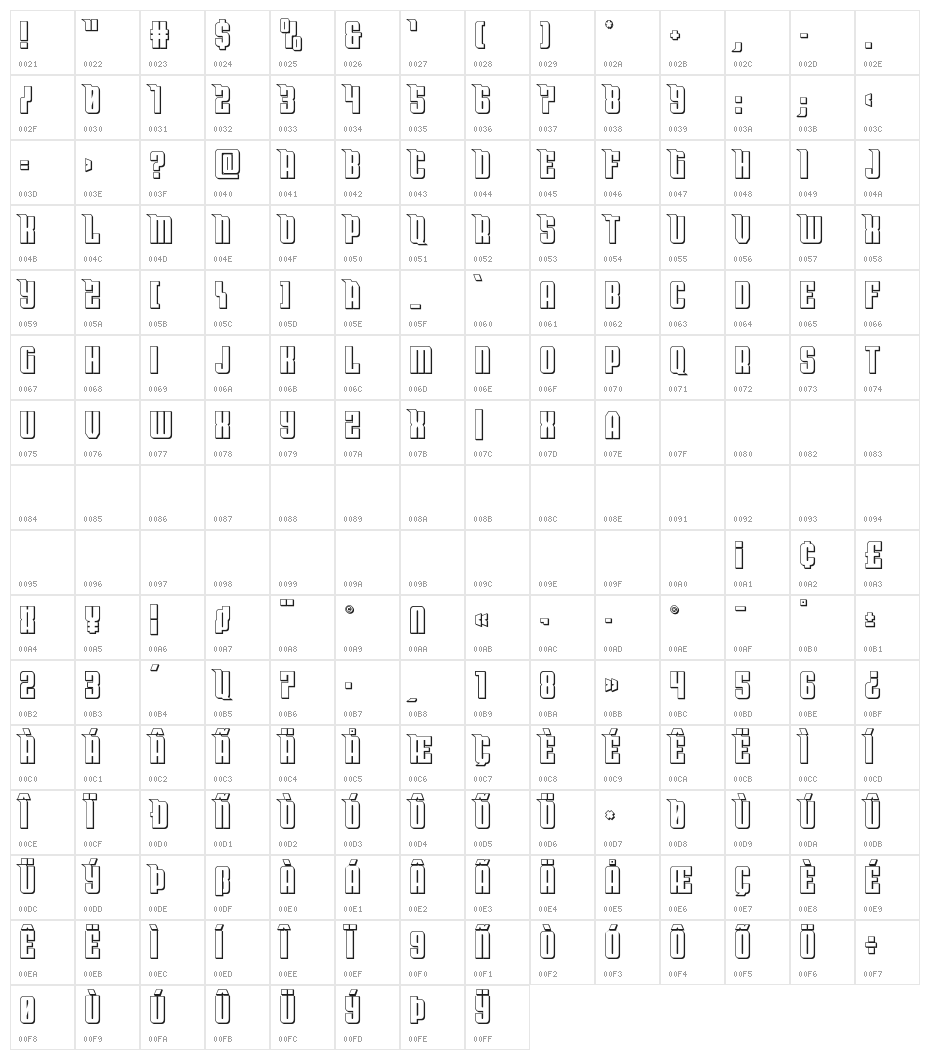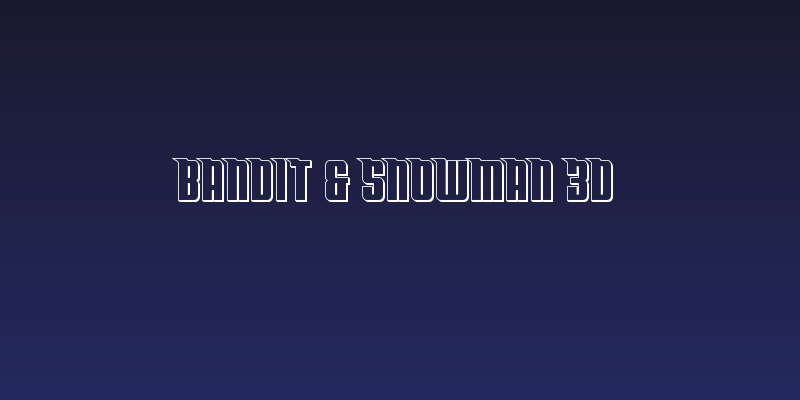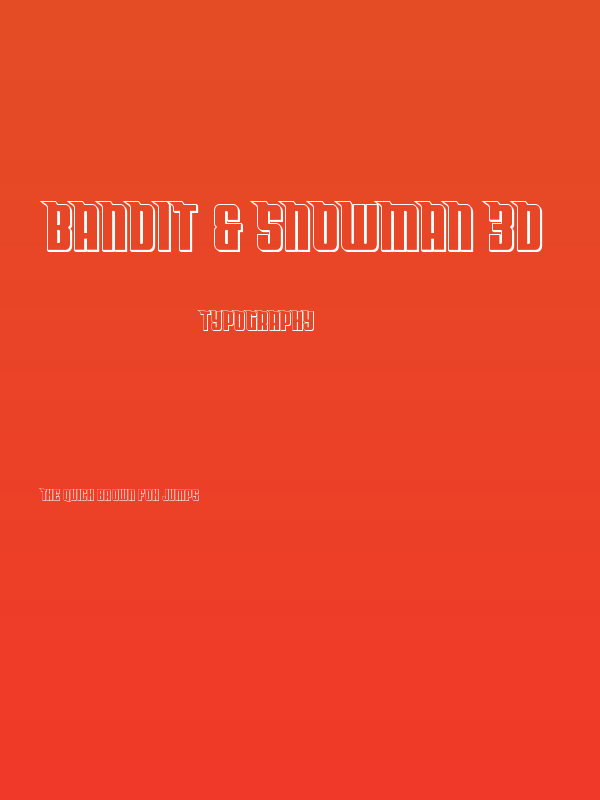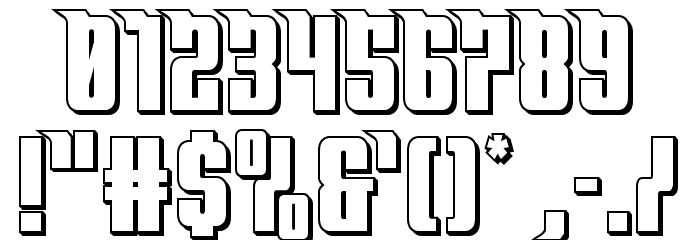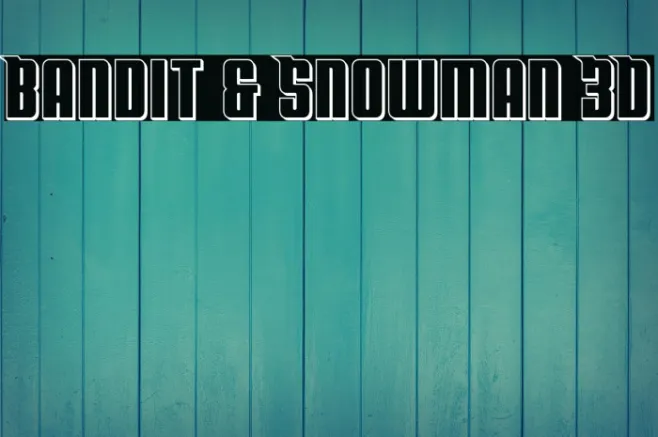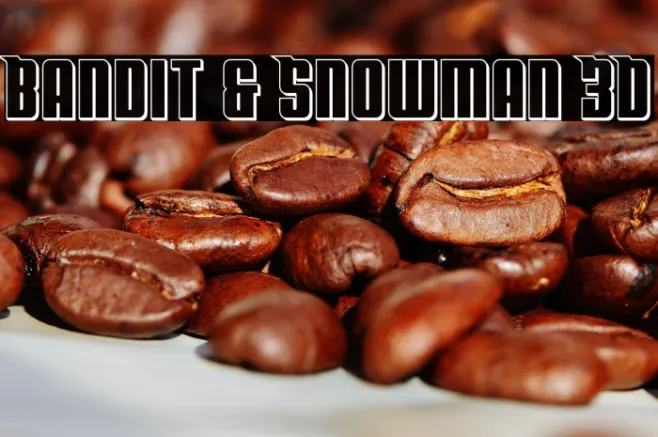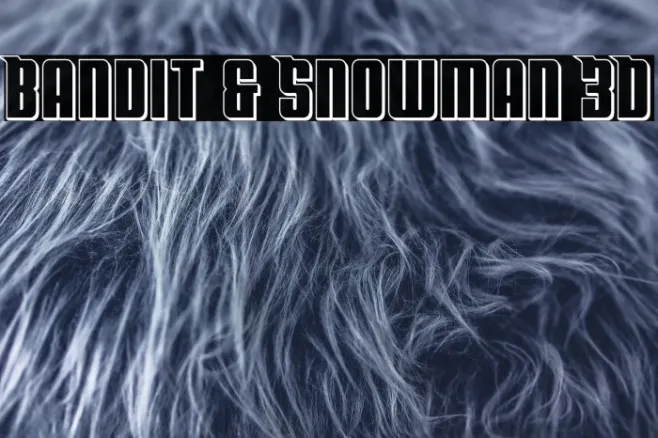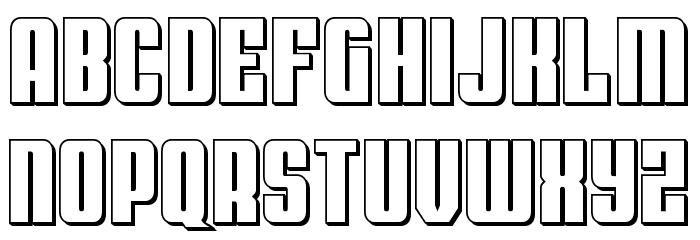
Bandit & Snowman 3D Font
Bandit & Snowman 3D Description
This font features a bold, three-dimensional design with a strong, impactful presence. The characters are outlined with a thick border, creating a shadow effect that gives depth and a sense of solidity. The uppercase letters are uniform in height, with a geometric and blocky style that conveys strength and stability. The numbers and special characters maintain this bold, outlined aesthetic, ensuring consistency across all glyphs. The font's design is reminiscent of vintage poster typography, making it ideal for attention-grabbing headlines and titles. Its boldness and 3D effect make it stand out, suitable for projects that require a strong visual impact.
| Overall Style | Vintage |
| Proposed Projects | Ideal for posters, logos, headlines, and any design needing a strong, impactful typeface. |